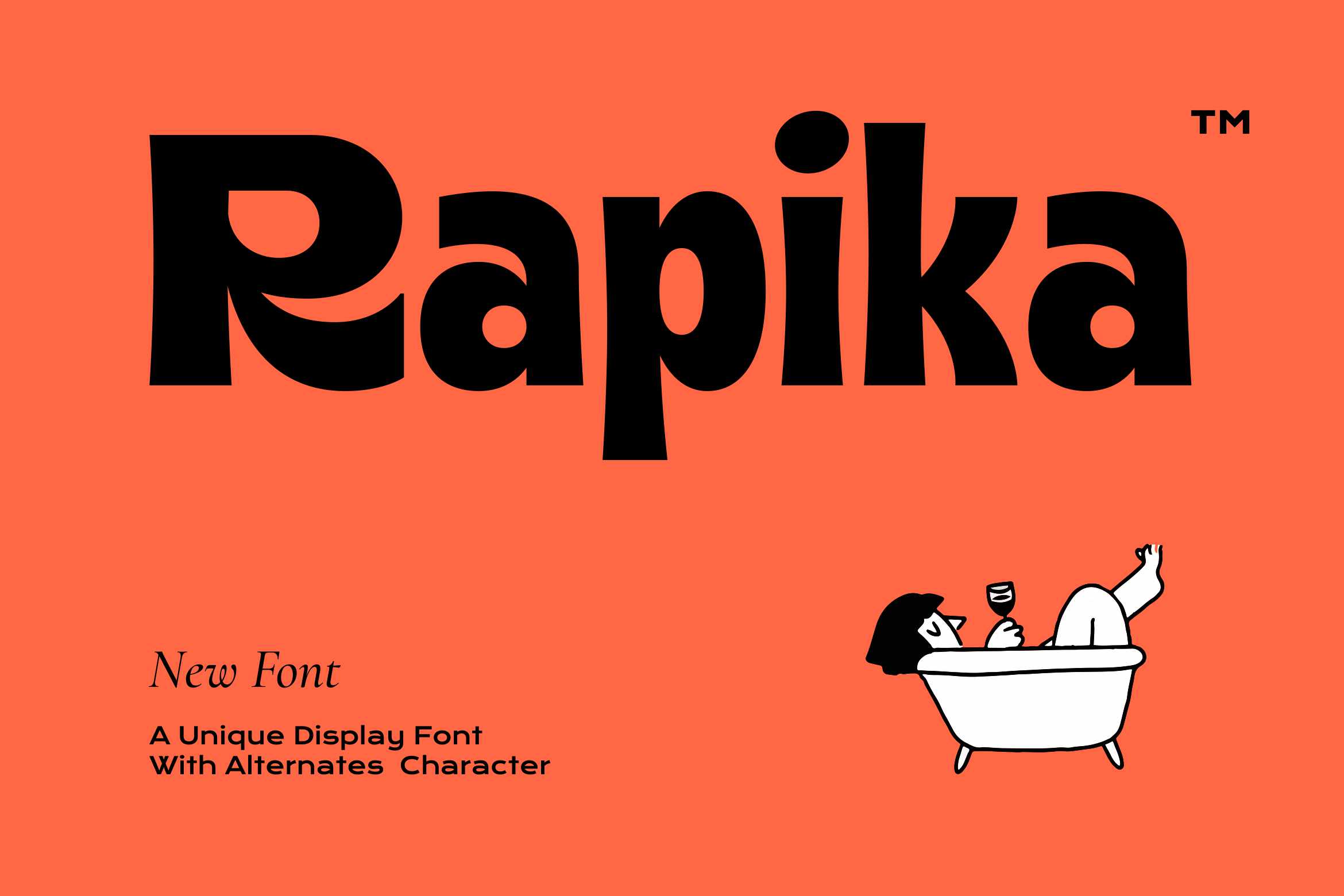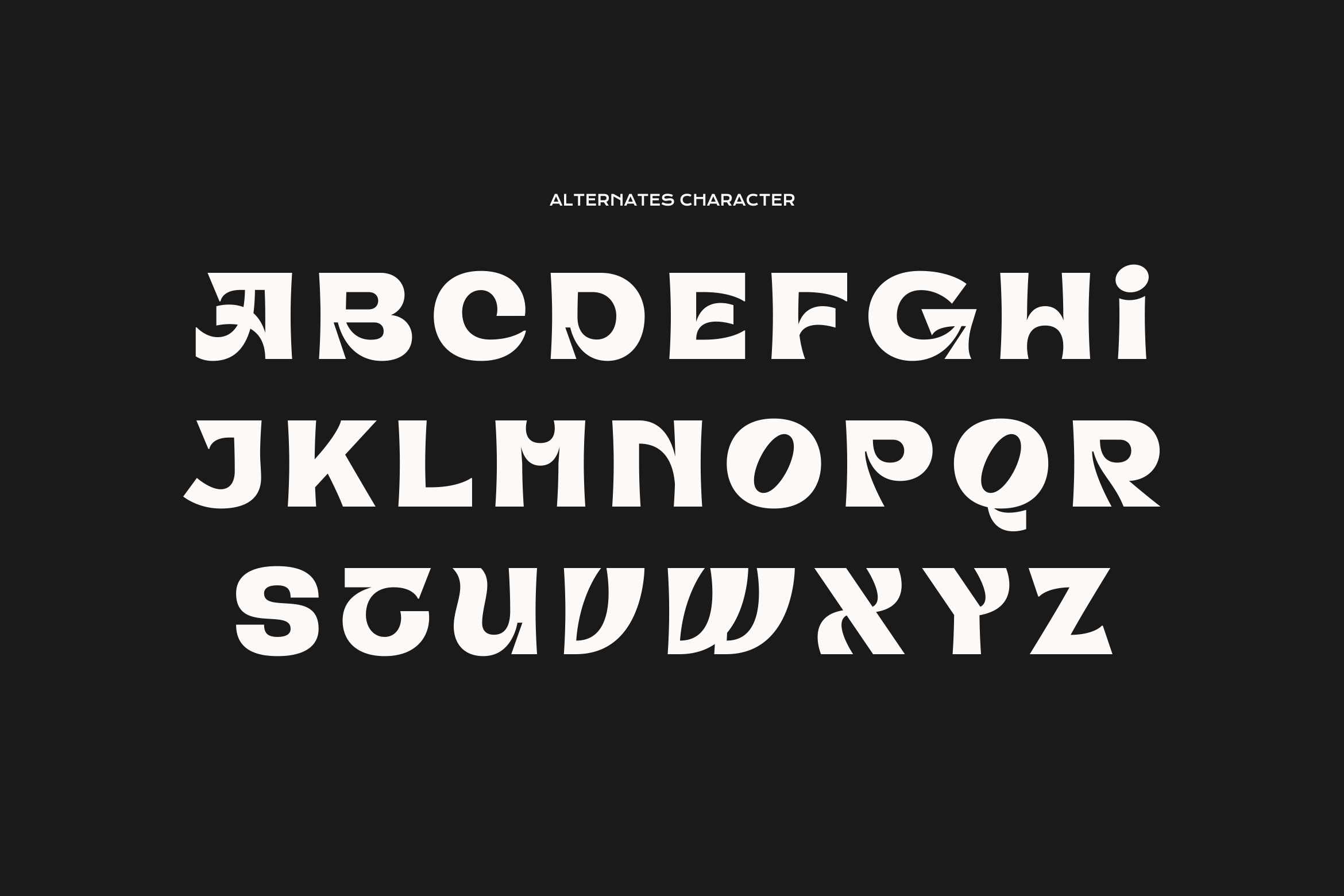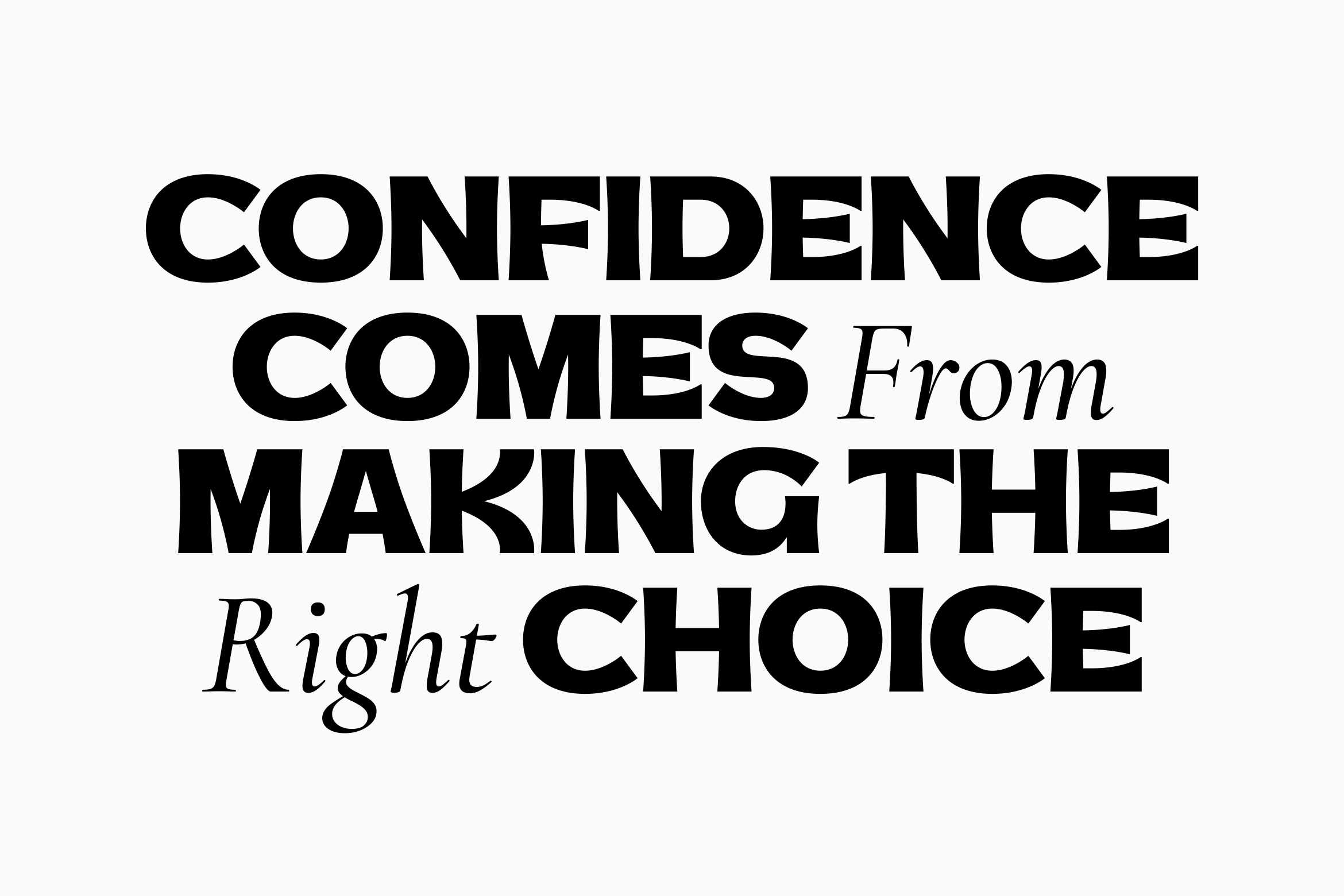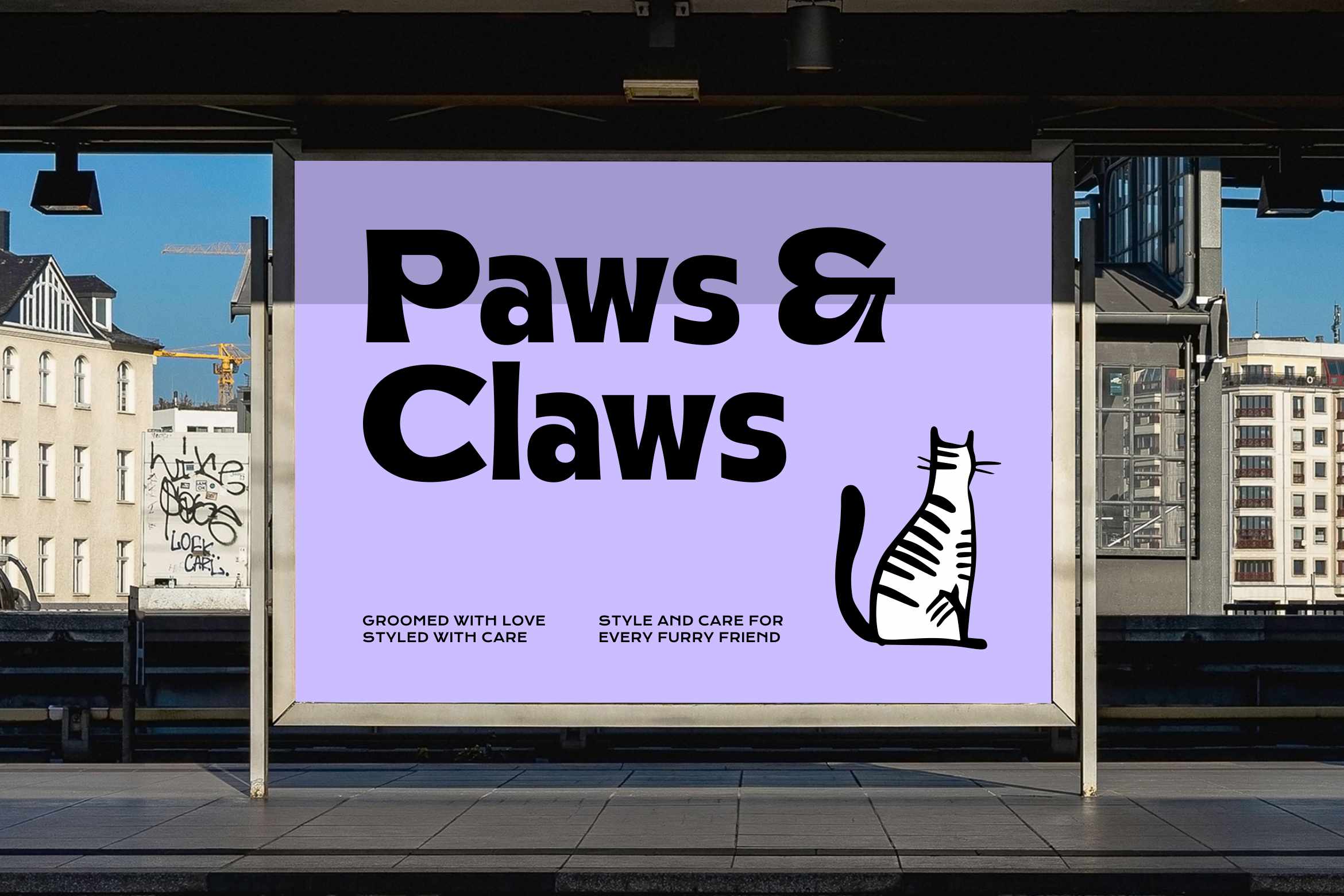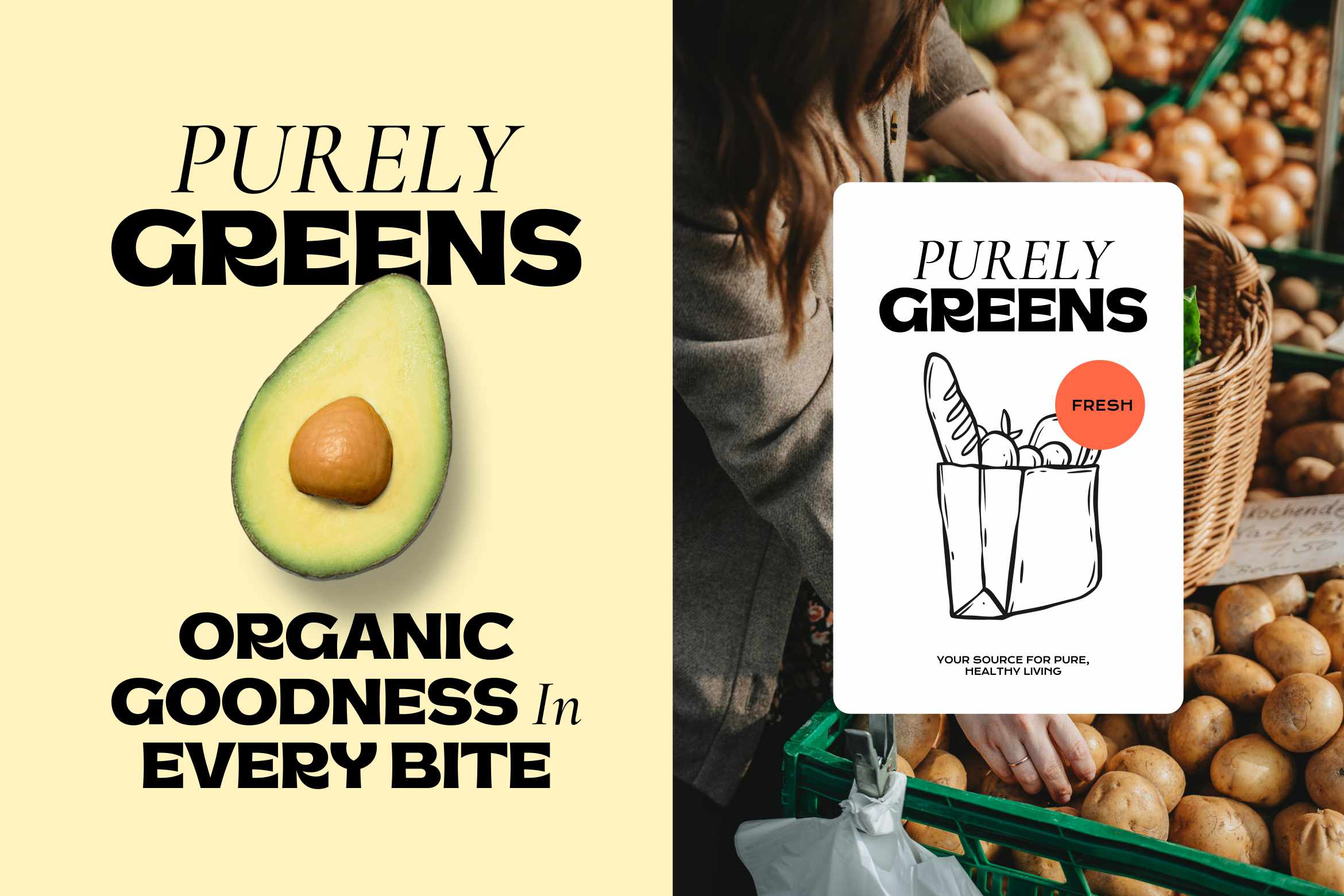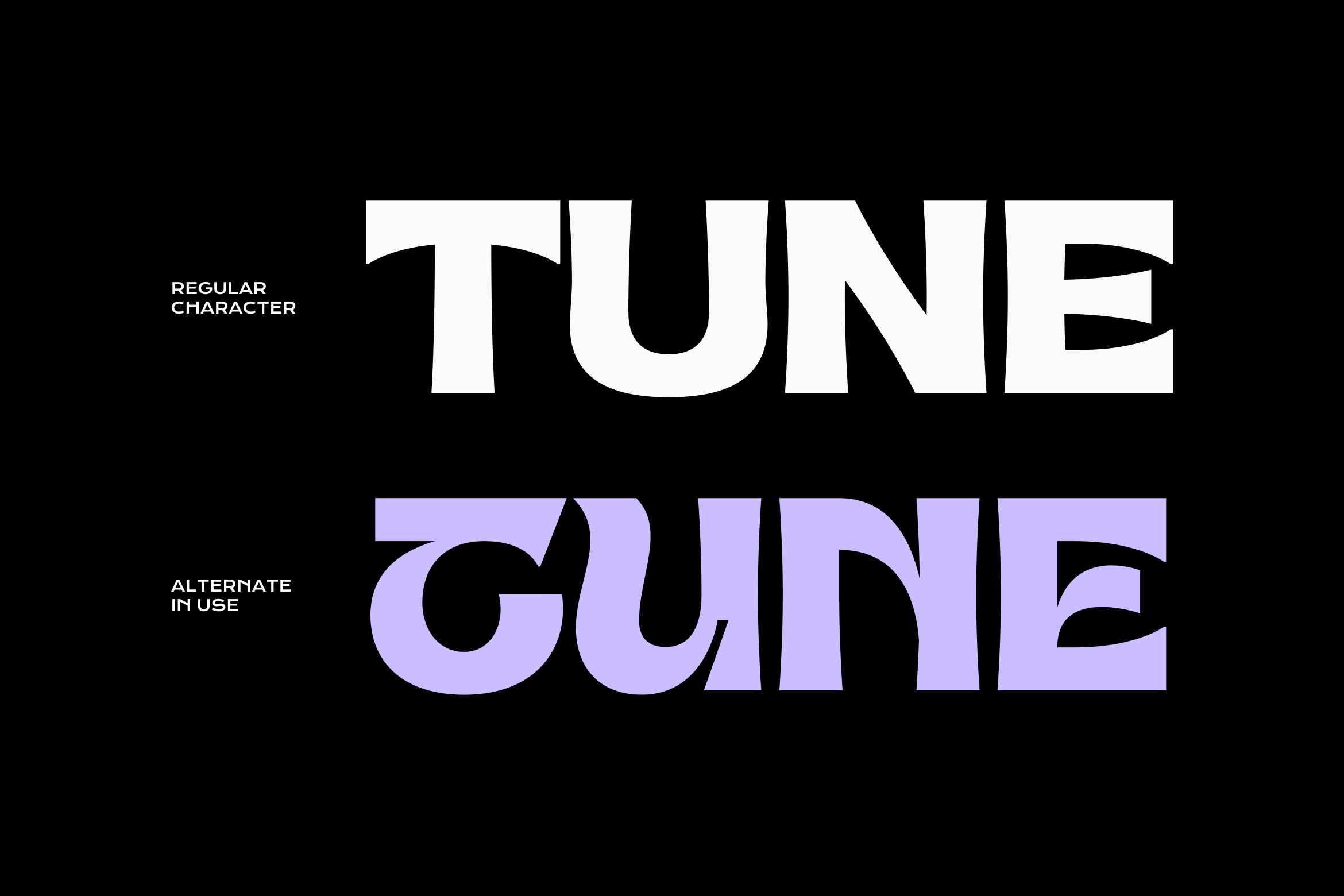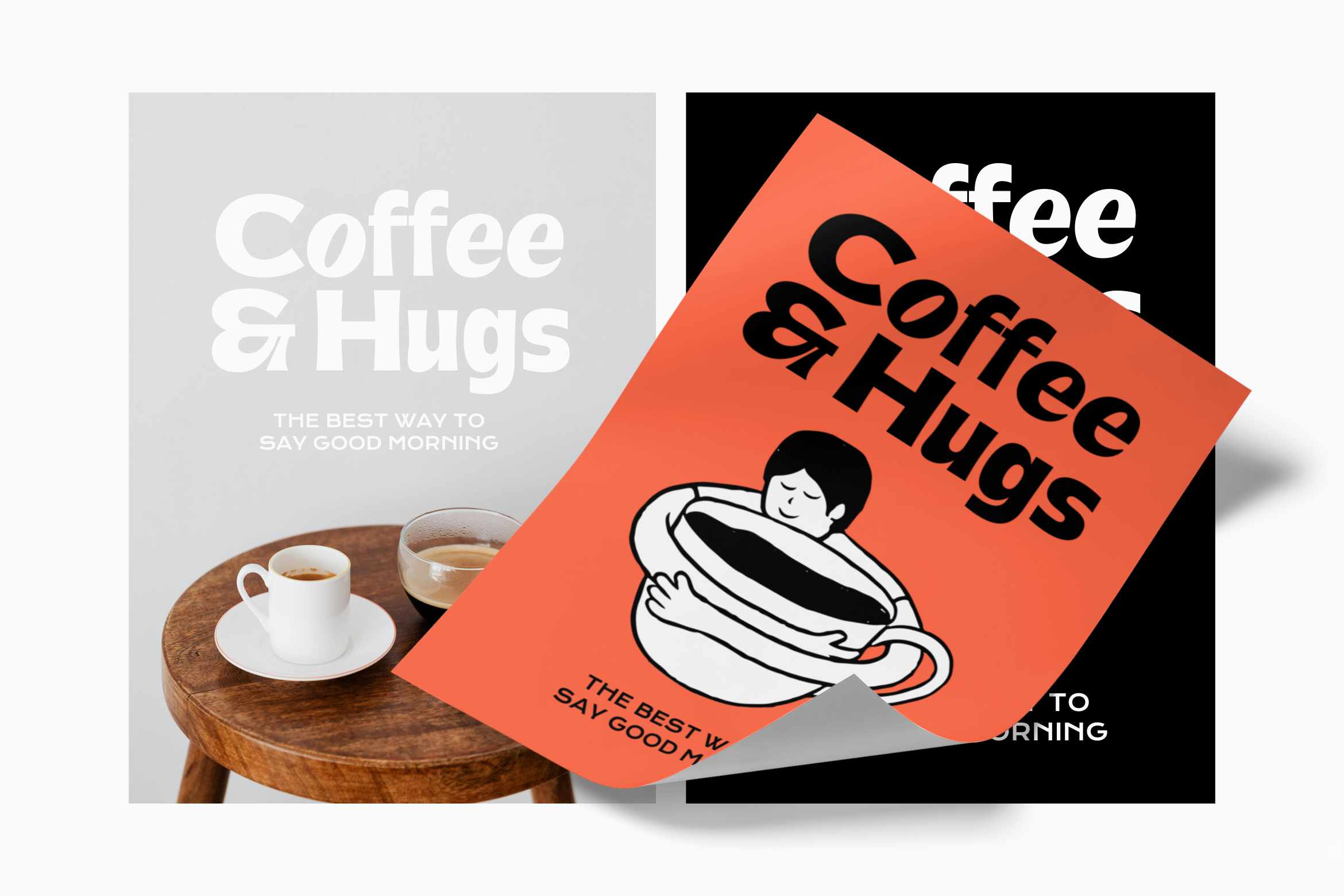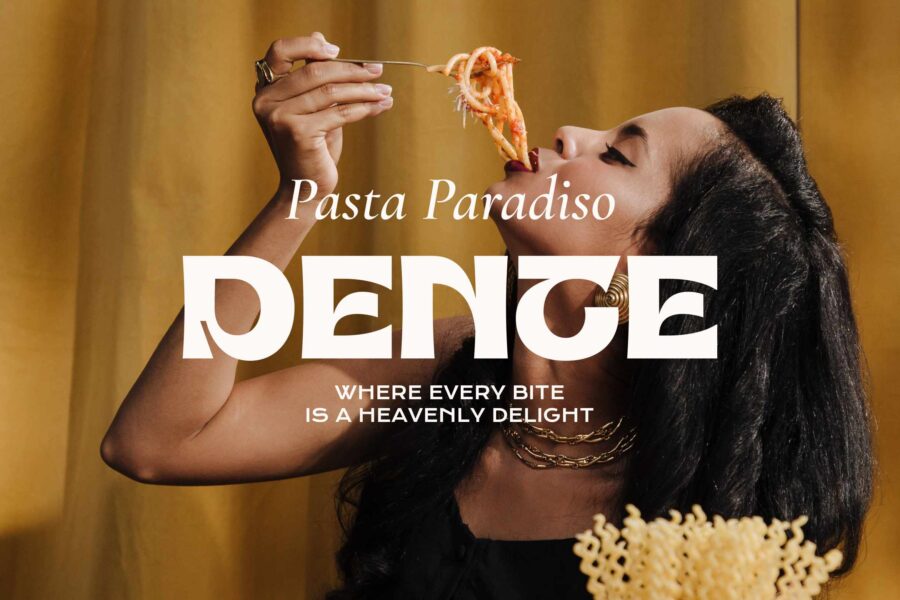
Rapika is a quirky, standout display font designed to bring warmth, charm, and individuality to your visual storytelling. With its chunky curves and subtle retro undertones, this typeface blends fun and sophistication effortlessly. Perfect for brands that want to feel human, expressive, and confident, Rapika is ideal for packaging, wellness, lifestyle products, fashion labels, and quirky editorial headlines.
Featuring a full set of uppercase, lowercase, numerals, symbols, and multilingual support, Rapika also includes alternative characters that let you experiment with expressive letterforms. Whether you’re creating logos, posters, or social media content, Rapika gives every word a punch of personality.
Rapika